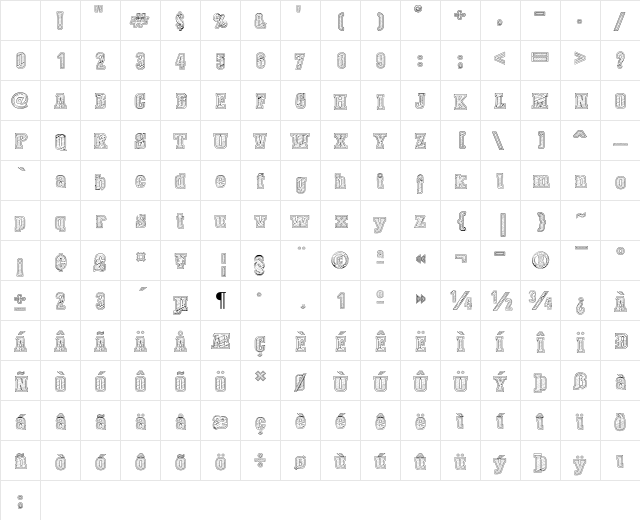
Dust West College brings high-energy athletic personality to the page - its confident, muscular forms are built for impact.
Pro Tip: Use Dust West College in all-caps headlines where its athletic energy can fully express itself. Pair with a solid, simple sans for supporting text.